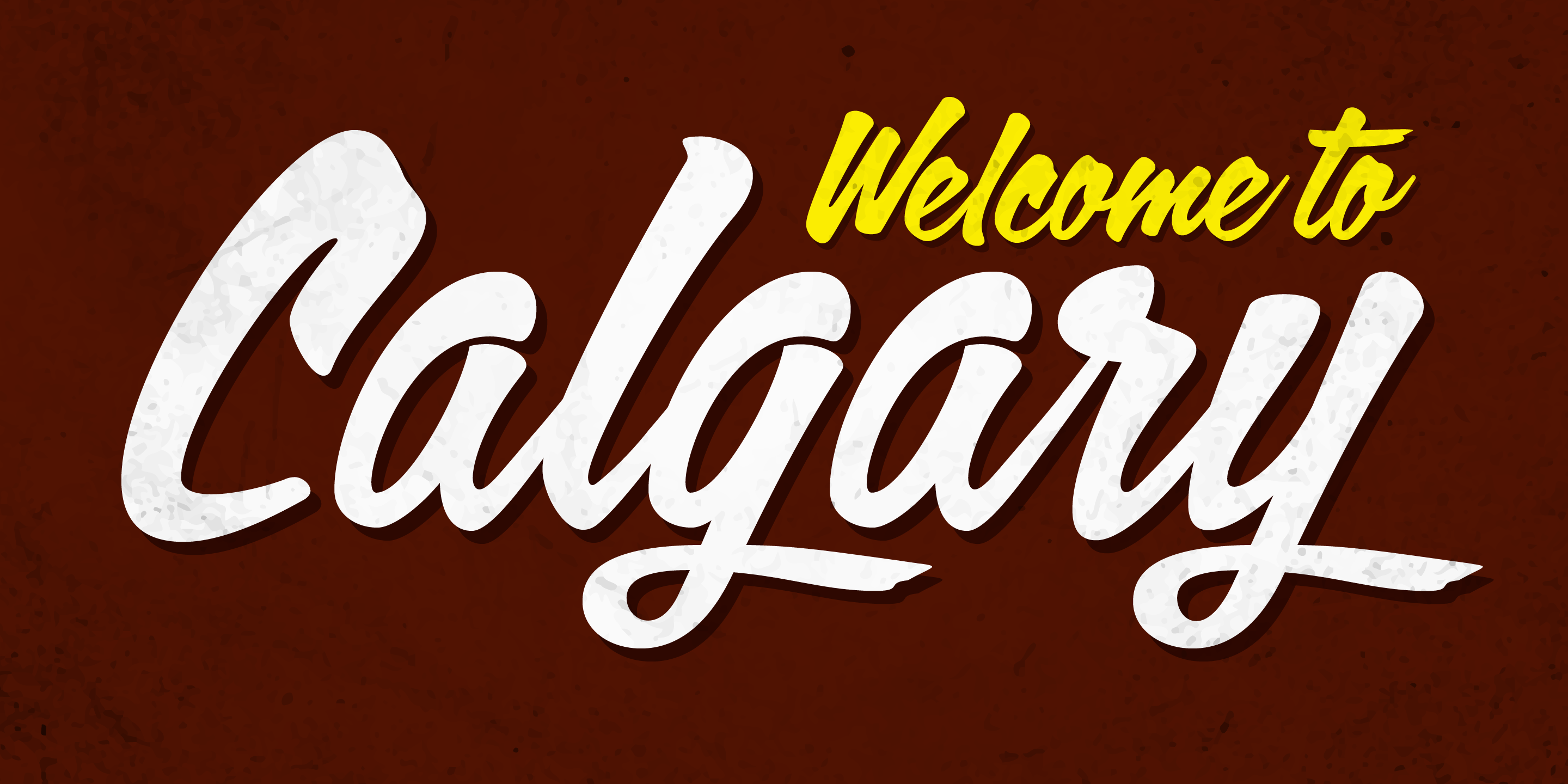
Calgary Script Font Free Download is an elegant and flowing script typeface with a modern calligraphic style. Perfect for branding, wedding invitations, logos, greeting cards, and any creative project that requires a sophisticated, handwritten touch, this font adds a personal, artistic flair. Calgary Script Font brings a refined, stylish, and timeless aesthetic to your designs, making it perfect for luxury, romantic, and vintage-themed projects.
With Calgary Script Font Free Download, you’ll receive a complete set of uppercase letters, lowercase, numbers, and essential punctuation, providing flexibility for both print and digital applications. Whether you’re creating elegant stationery, branded products, or promotional materials, this font ensures readability while delivering a refined and artistic look.
Add elegance and sophistication to your designs with Calgary Script Font Free Download. Its graceful, flowing style makes it a standout choice for projects that need a personal, artistic, and timeless touch.